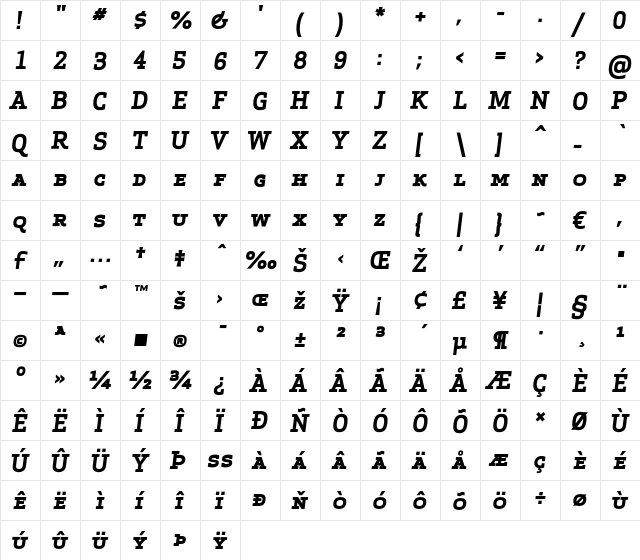
Apex Serif Bold Italic Caps Regular Font Preview
Design Context for Apex Serif Bold Italic Caps Typeface
Apex Serif Bold Italic Caps carries the refined structure of traditional serif typography, with bracketed terminals and considered proportions that communicate credibility and craft. The slanted form adds forward momentum and visual energy. The heavy weight commands attention and anchors typographic hierarchies.
Pro Tip: Use Apex Serif Bold Italic Caps for editorial body copy and considered headline work. Pair with a neutral sans for UI elements or captions to create a classic hierarchy.